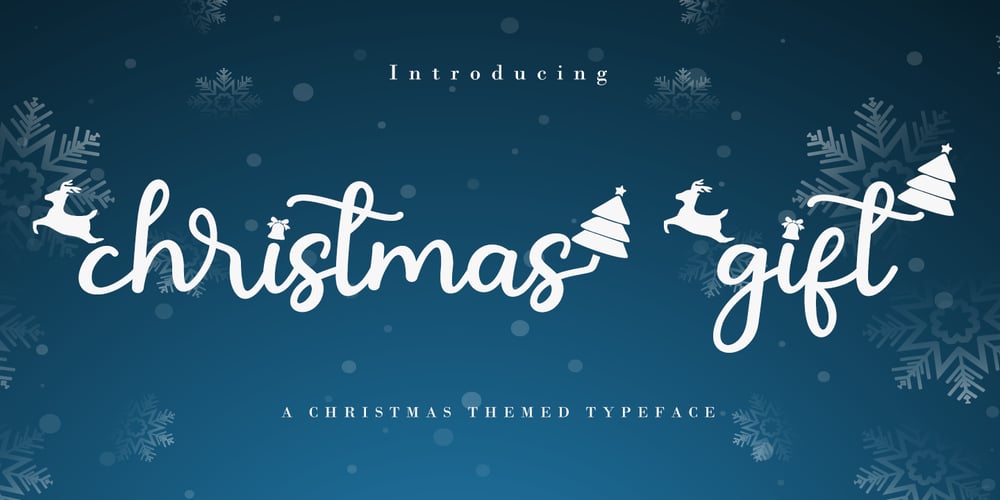
Christmas Gift
Christmas Gift font
Christmas Gift Font Family was designed by Agung Eko Nugroho and published by AEN Creative Studio. Christmas Gift contains 2 styles and family package options. Christmas Gift is a cute handwritten font. It will add an incredibly joyful touch to your designs. Add this beautiful display font to each of your creative ideas and notice how it makes them stand out!